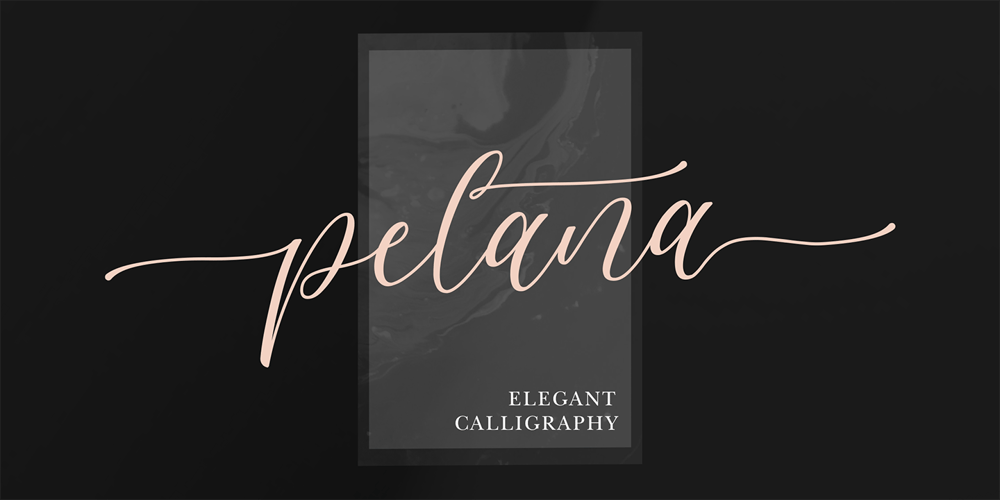
Pelana Font Family was designed by Eko Kurniawan and published by Atom. Pelana contains 1 styles and family package options. Pelana is a stylish and incredibly elegant script font. It looks stunning on wedding invitations, thank you cards, quotes, greeting cards, logos, business cards and every other design which needs a handwritten touch. This font is PUA encoded which means you can access all of the glyphs and swashes with ease! It features a varying baseline, smooth lines, gorgeous glyphs and stunning alternates.